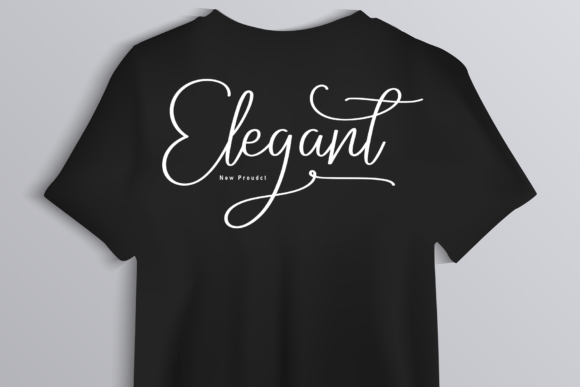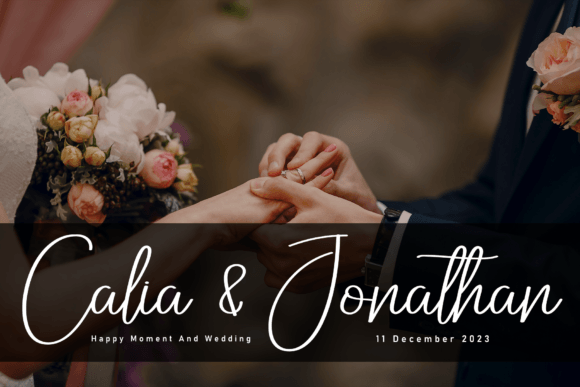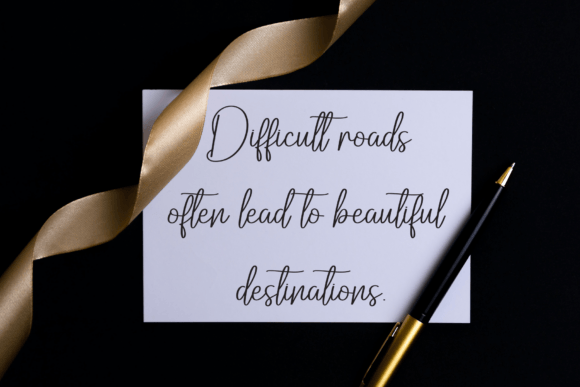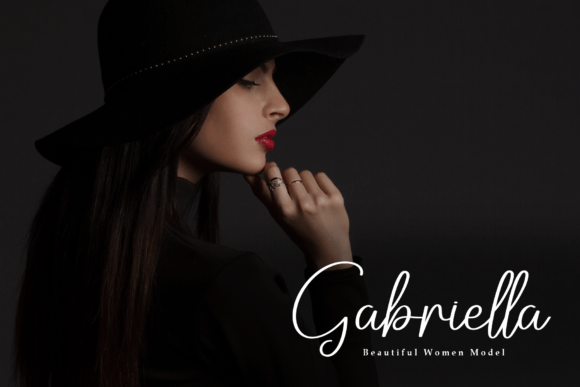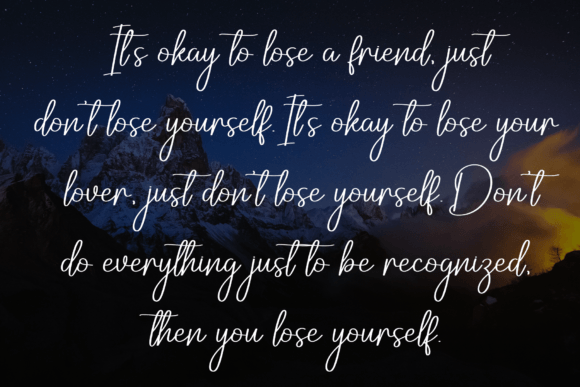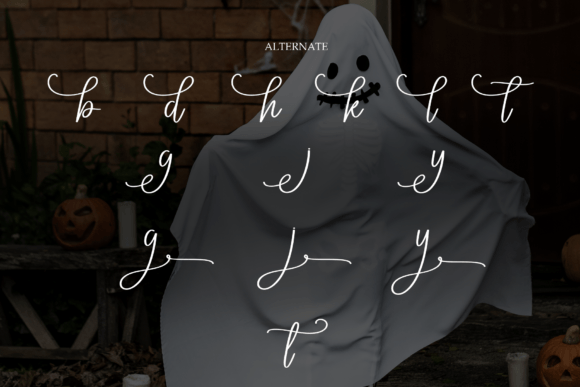
Babyghost Font: Elevate Your Designs with Elegance and Sophistication
In the world of typography, a well-crafted font can make all the difference in elevating your designs to new heights. Introducing Babyghost Font, a stunning handwritten typeface that seamlessly blends classic calligraphic influences with modern flair. This exquisite font is poised to become your new favorite, and for good reason. With its unique balance of elegance and freshness, Babyghost Font is the perfect addition to any design project.
The Art of Handwritten Typography
Babyghost Font is a masterfully designed handwritten font that exudes sophistication and refinement. Its classy calligraphic roots are evident in the fluid, cursive strokes that dance across the page. Yet, despite its traditional influences, the font feels remarkably contemporary and fresh. This harmonious blend of old and new makes Babyghost Font an incredibly versatile choice for designers and crafters.
What Makes Babyghost Font So Special?
So, what sets Babyghost Font apart from other typefaces? Here are just a few reasons why this font is sure to capture your heart:
- Unique Character: Babyghost Font boasts a distinctive, hand-crafted quality that lends a personal touch to any project. Its one-of-a-kind character makes it perfect for designs that demand a bit of personality.
- Elegant and Refined: With its calligraphic roots, Babyghost Font brings a level of sophistication and elegance to your designs. Use it to create stunning invitations, beautiful branding materials, or eye-catching packaging.
- Contemporary and Fresh: Despite its classic influences, Babyghost Font feels remarkably modern and fresh. This makes it an excellent choice for designers looking to create designs that feel current and on-trend.
- Versatile: Babyghost Font is incredibly versatile, making it suitable for a wide range of design applications. Use it for everything from wedding invitations and branding materials to packaging and digital graphics.
Babyghost Font is a dream come true for designers and crafters looking to elevate their projects to new heights. Whether you’re a seasoned professional or an enthusiastic hobbyist, this font is sure to inspire your creativity. Here are just a few ways you can use Babyghost Font to take your designs to the next level:
- Wedding Invitations: Create stunning wedding invitations that set the tone for a beautiful and elegant celebration.
- Branding Materials: Use Babyghost Font to create eye-catching logos, business cards, and letterheads that showcase your brand’s personality.
- Packaging: Add a touch of elegance to your product packaging with Babyghost Font. Perfect for luxury brands, food packaging, or cosmetics.
- Digital Graphics: Use Babyghost Font to create stunning digital graphics, such as social media graphics, blog headers, or email newsletters.
In conclusion, Babyghost Font is a truly exceptional handwritten typeface that deserves a spot in every designer’s toolkit. Its exquisite blend of classic calligraphic influences and modern freshness makes it the perfect choice for a wide range of design applications. Whether you’re looking to create elegant wedding invitations, sophisticated branding materials, or eye-catching packaging, Babyghost Font is the perfect choice. So why not give it a try and experience the magic of Babyghost Font for yourself?